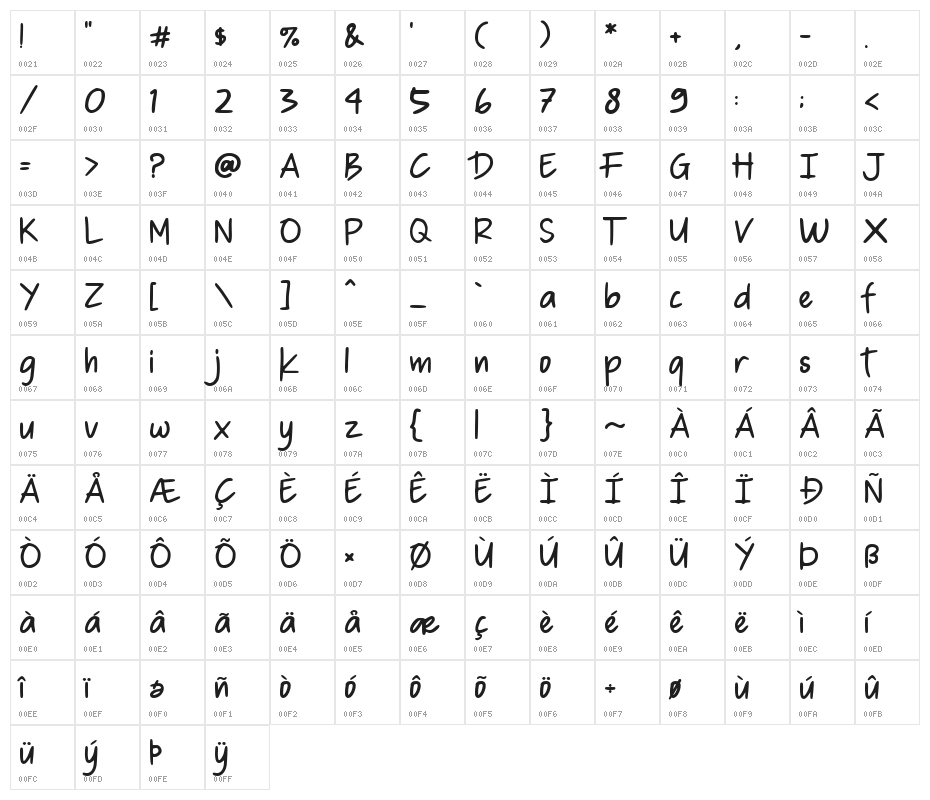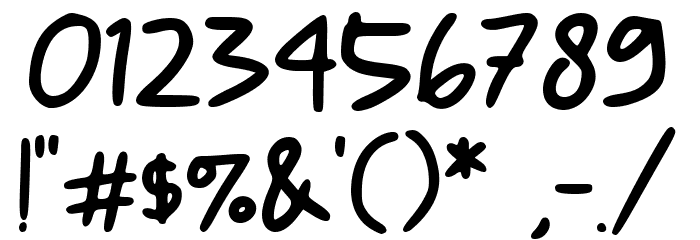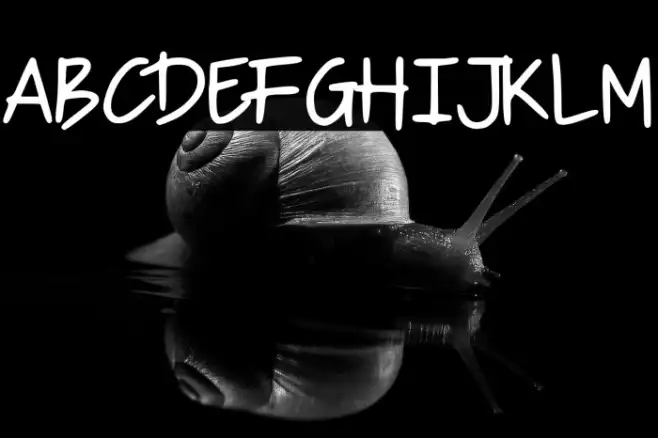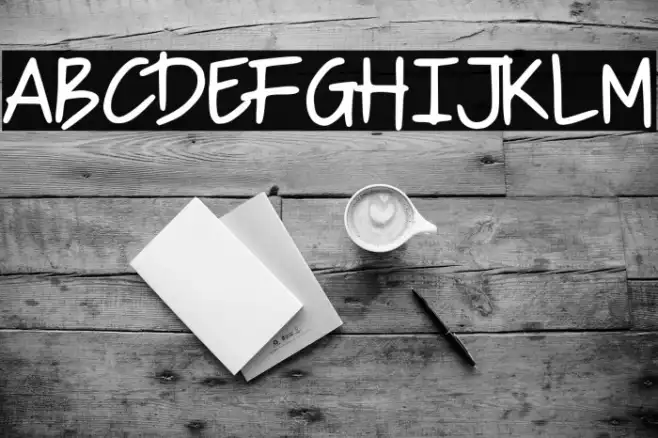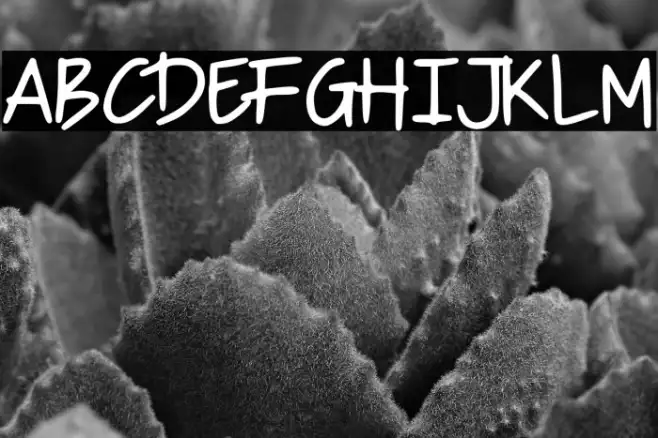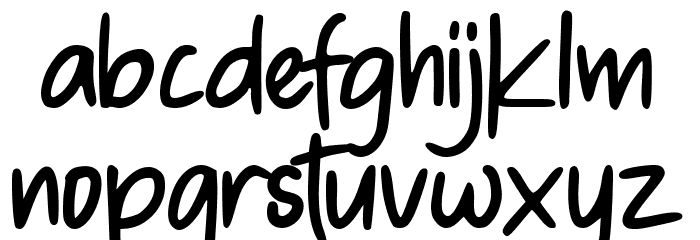
Mister Child Font
Mister Child Description
This playful and energetic font features a handwritten style that exudes a sense of fun and creativity. The letters are slightly irregular, giving it an authentic, personal touch. The strokes are bold and confident, with a consistent thickness that maintains readability while adding a lively character. The font includes a full set of uppercase and lowercase letters, numbers, and a variety of special characters, making it versatile for various design needs. Its informal and friendly appearance makes it ideal for projects that aim to convey warmth and approachability.